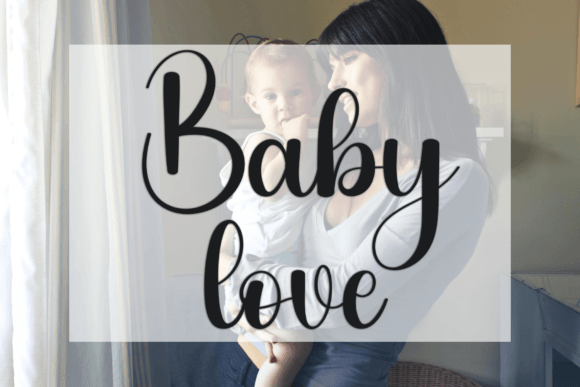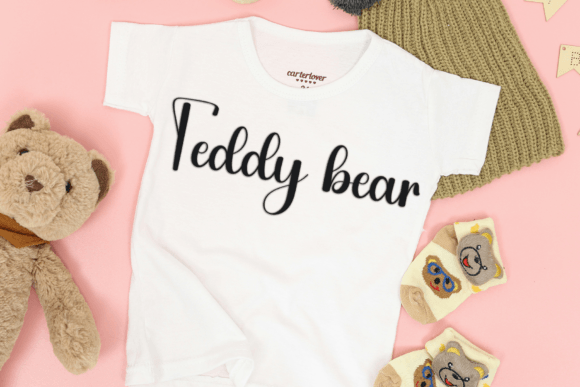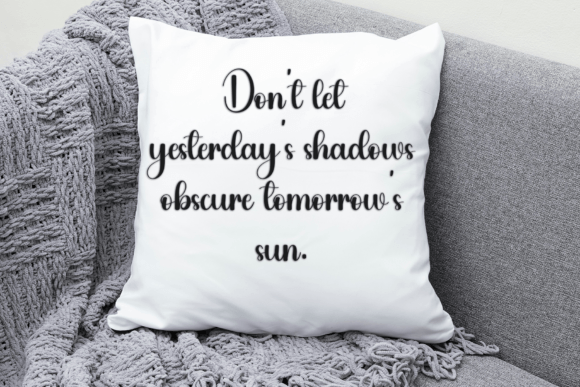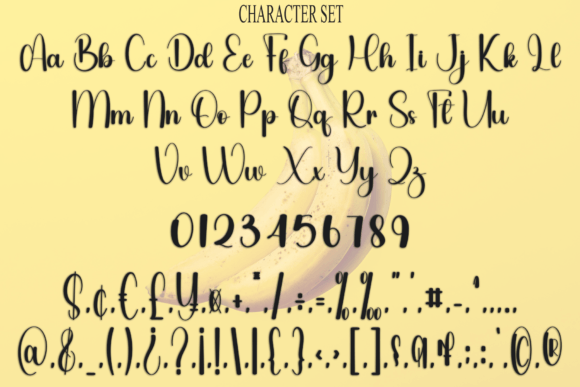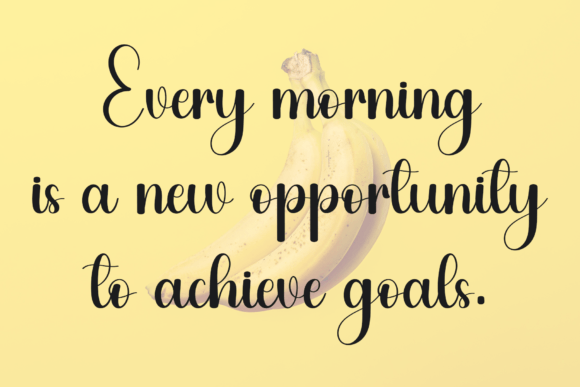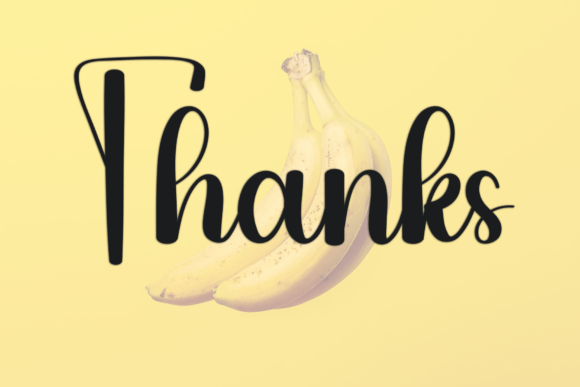
The Sweetest Touch: Introducing Banana Font
As a designer, there’s nothing quite like the rush of inspiration that comes from stumbling upon the perfect font. You’re brainstorming ideas for a holiday project, and suddenly, a font pops into your head – one that screams ‘festive’, ‘fun’, and ‘full of cheer’. For me, that font is Banana, the ultimate holiday companion that adds a touch of whimsy to any design.
Designed to evoke the magic of the holiday season, Banana Font is the perfect addition to your festive projects. With its playful decorations and unique flair, this font brings a sense of nostalgia and joy to your words. Whether you’re creating greeting cards, gift labels, or holiday-themed projects, Banana Font is the perfect way to add a personal touch.
Banana Font Key Features
- Font Family: Banana Font is a custom-designed font family with multiple styles, including Regular, Bold, Italic, and Bold Italic.
- Unique Characteristics: The font features a unique, hand-drawn design with subtle irregularities, giving it a natural and organic feel.
- Language Support: Banana Font includes support for Latin-based languages, as well as some Cyrillic and Greek characters, making it suitable for a wide range of applications.
Banana Font Review
Overall, I’d say the Banana Font is a sweet addition to any digital project. Here’s what I think works well:
- ✨ Playful and fun vibe: This font screams ‘fun’ and is perfect for projects that need a lighthearted touch.
- ✨ Great for headings: The Banana Font really stands out in headings, adding a pop of color and personality to your design.
- ✨ Versatile: This font can work well in both digital and print projects, making it a great addition to any designer’s toolkit.
- ⚠️ Limited font sizes: While the font looks great in headings, it can become a bit messy at smaller font sizes.
- ⚠️ Limited customization options: The font is quite bold and playful, which can make it difficult to customize to fit more serious or professional projects.
Overall, I’d give the Banana Font 4 out of 5 stars. It’s a great addition to any project that needs a bit of whimsy and personality, but may not be the best choice for more serious or professional designs.
The Banana Font is a playful and whimsical font, making it perfect for:
- Creative projects and designs.
- Children’s products and packaging.